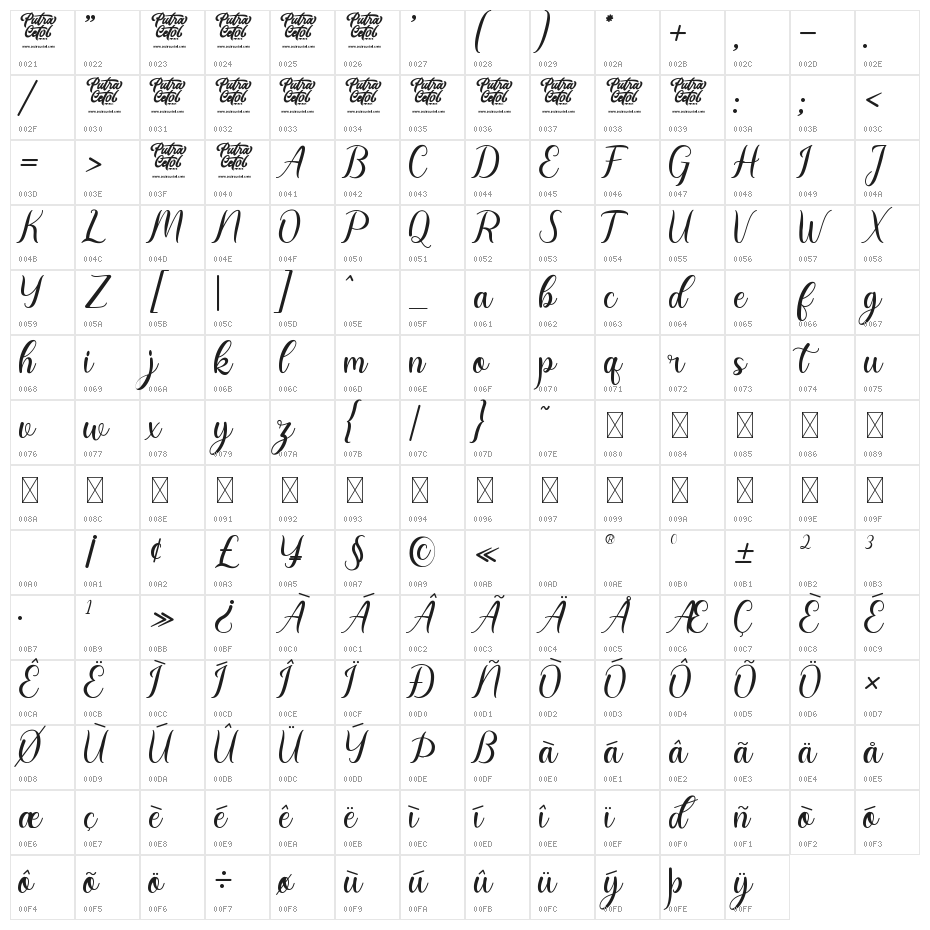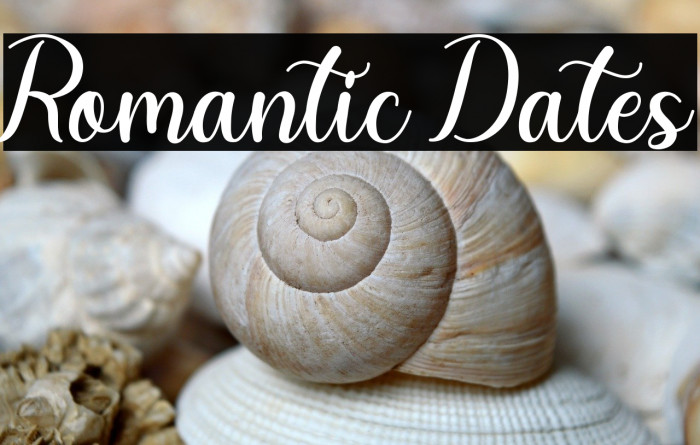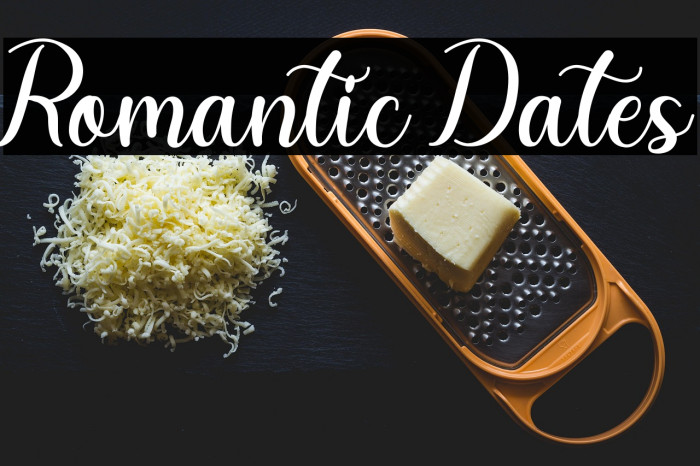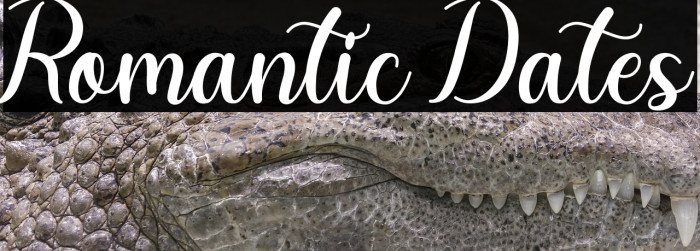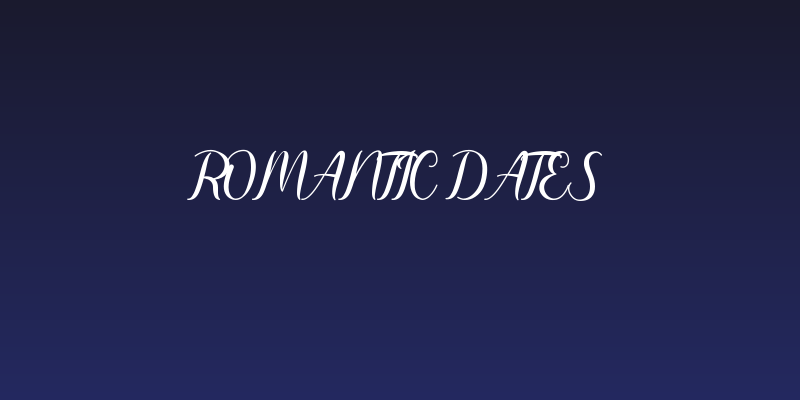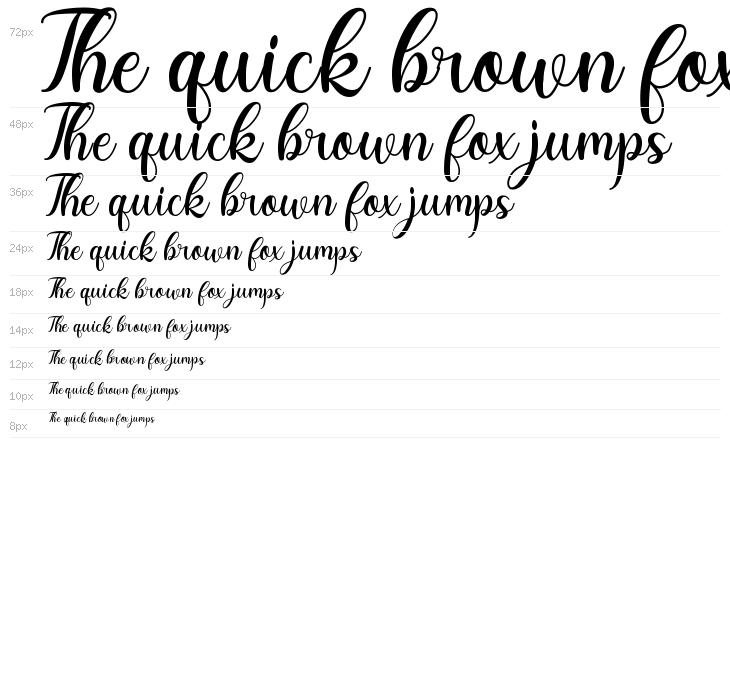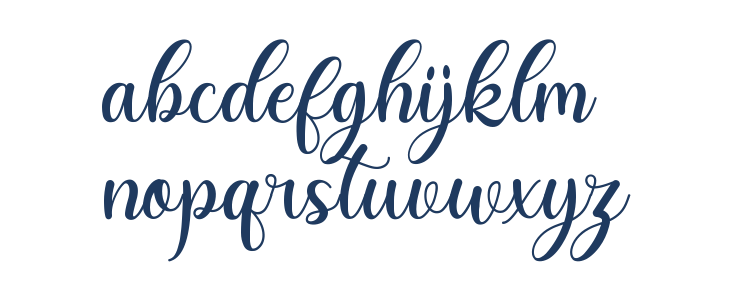
Romantic Dates Font
Romantic Dates Description
This font exudes elegance and sophistication with its flowing, cursive script style. The characters are beautifully crafted with smooth, sweeping curves and delicate strokes that give it a romantic and graceful appearance. The uppercase letters are tall and slightly slanted, while the lowercase letters maintain a consistent flow, enhancing the overall fluidity of the design. The font's intricate details and stylish flair make it ideal for projects that require a touch of elegance and charm. It is perfect for invitations, greeting cards, and any design that aims to convey a sense of romance and refinement.
| Overall Style | Romantic |
| Use Case | Invitations, Greeting cards, Branding |
| Proposed Projects | Ideal for wedding invitations, greeting cards, branding, and romantic-themed designs. |